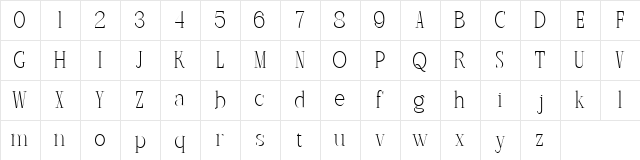
Ungaraca Regular
Foundry: Pentagonistudio
Designer: Arif Rijal
Design Context for Ungaraca
Ungaraca is a composed and adaptable typeface that performs quietly and consistently across a wide range of design contexts.